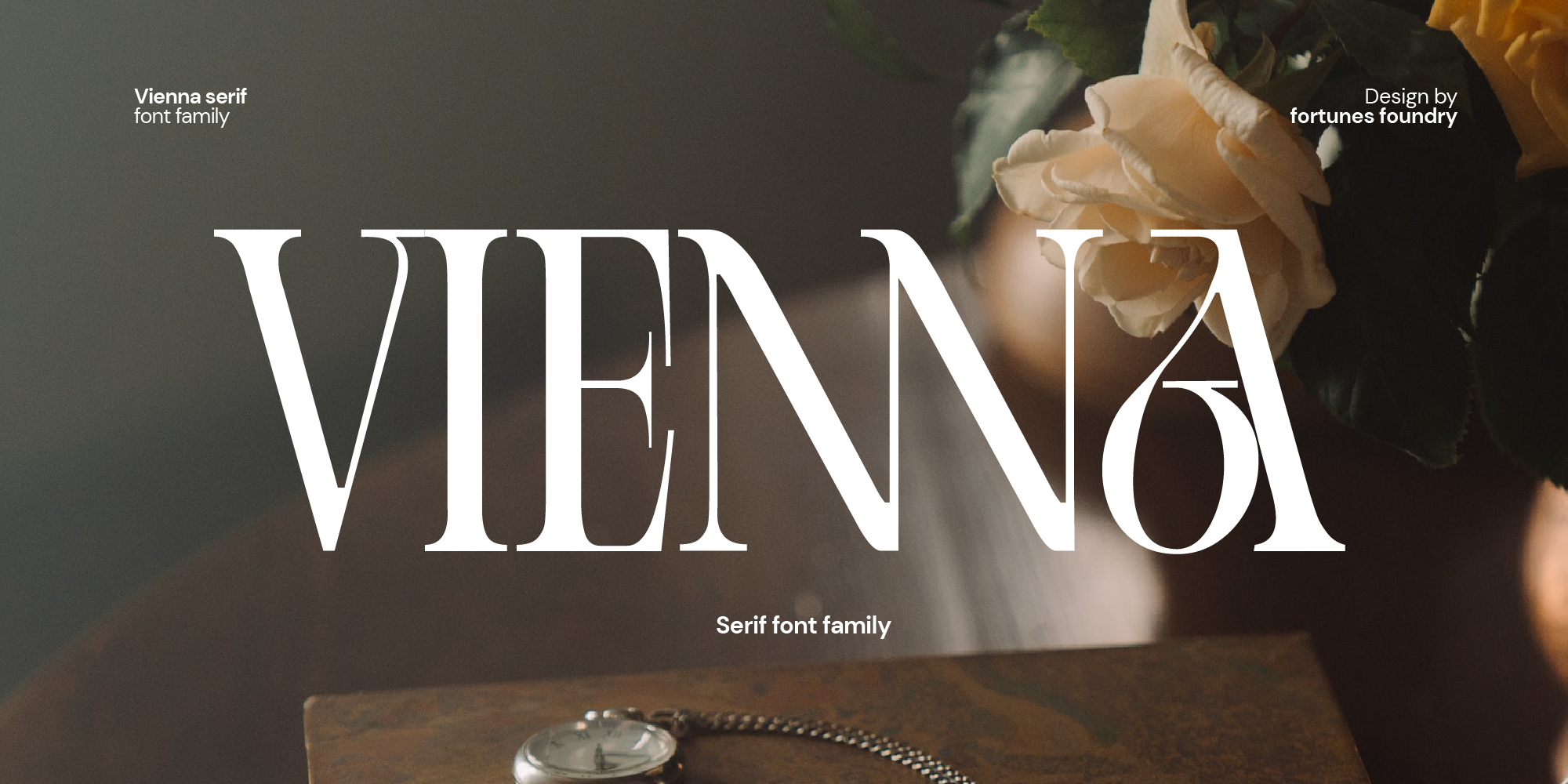
The Fd Vienna Font is perfect for European luxury branding, classical music venue signage, upscale café menus, cultural institution materials, sophisticated hotel branding, elegant concert programs, refined wine labels, artisan bakery designs, historic city tourism, and prestigious cultural event invitations.
What makes the Fd Vienna Font exciting is its exceptional ability to capture the timeless elegance and cultural sophistication of Austria's imperial capital through gracefully refined letterforms that embody centuries of artistic heritage and European refinement. This distinguished typeface features classical proportions, Habsburg-era inspired character construction, and Old World design elements that instantly evoke the grandeur of Vienna's palaces, the elegance of its coffeehouses, and the artistic excellence of its cultural institutions. Each letter carries the weight of European cultural tradition and imperial sophistication.
The Fd Vienna Font family includes regular, italic, bold, and ornamental versions, along with European symbols, classical ornaments, and cultural decorative elements that enhance its sophisticated appeal across various luxury and heritage design applications.
Whether you're creating European luxury brand identities or designing classical cultural materials, Fd Vienna Font Free Download delivers unmatched elegance and authentic Viennese sophistication. Its masterfully crafted letterforms ensure perfect readability while maintaining that essential Old World character that speaks to cultured audiences appreciating European heritage and classical refinement. The font's cultural features include contextual alternates, classical ligatures, and European variations that automatically create authentic Habsburg-era aesthetics. Luxury European brands and cultural institutions consistently choose this font for projects requiring genuine continental elegance and classical cultural credibility. The Fd Vienna Font transforms ordinary text into distinguished expressions of European sophistication, making it an invaluable treasure in any designer's classical typography collection.